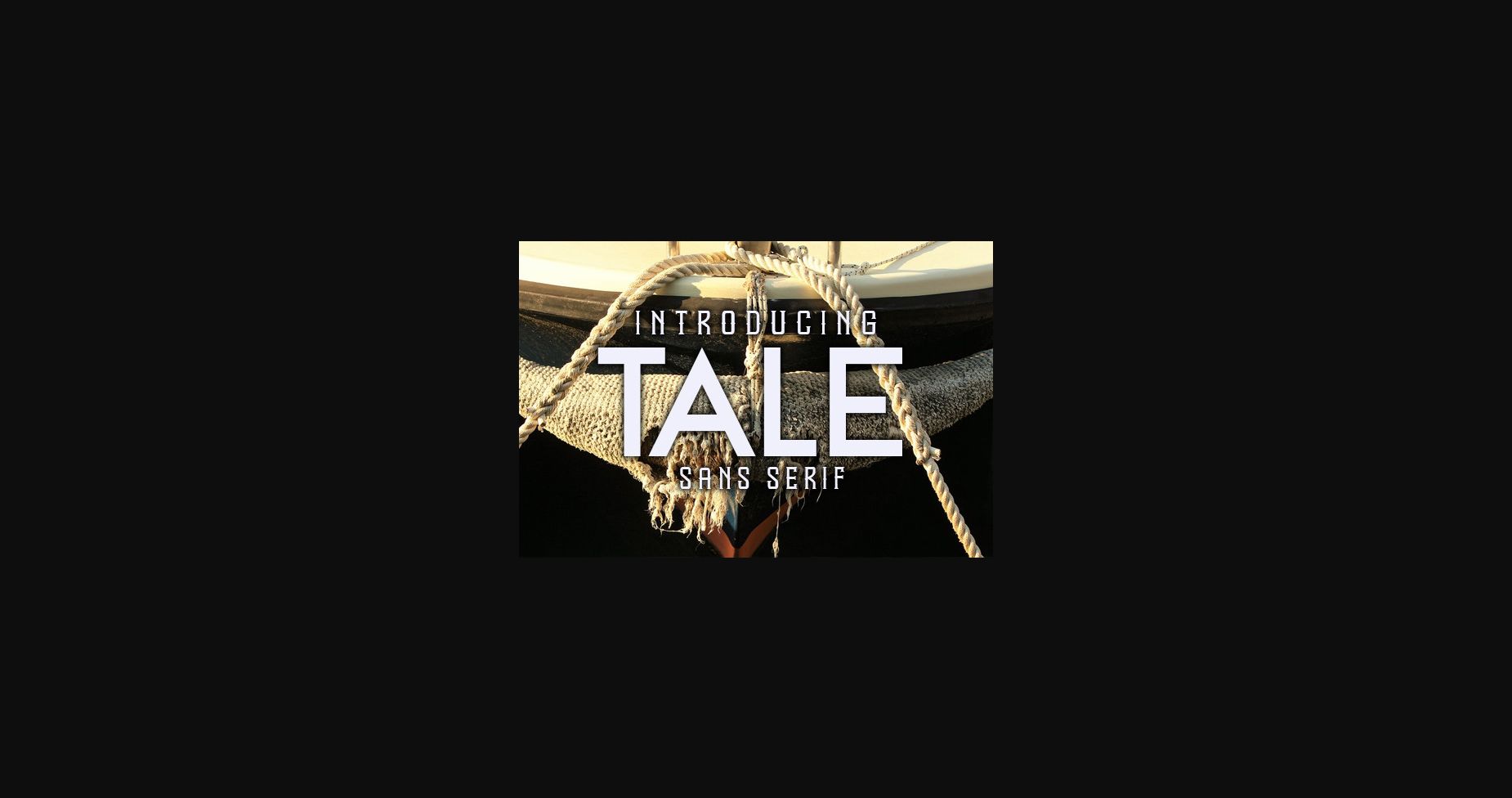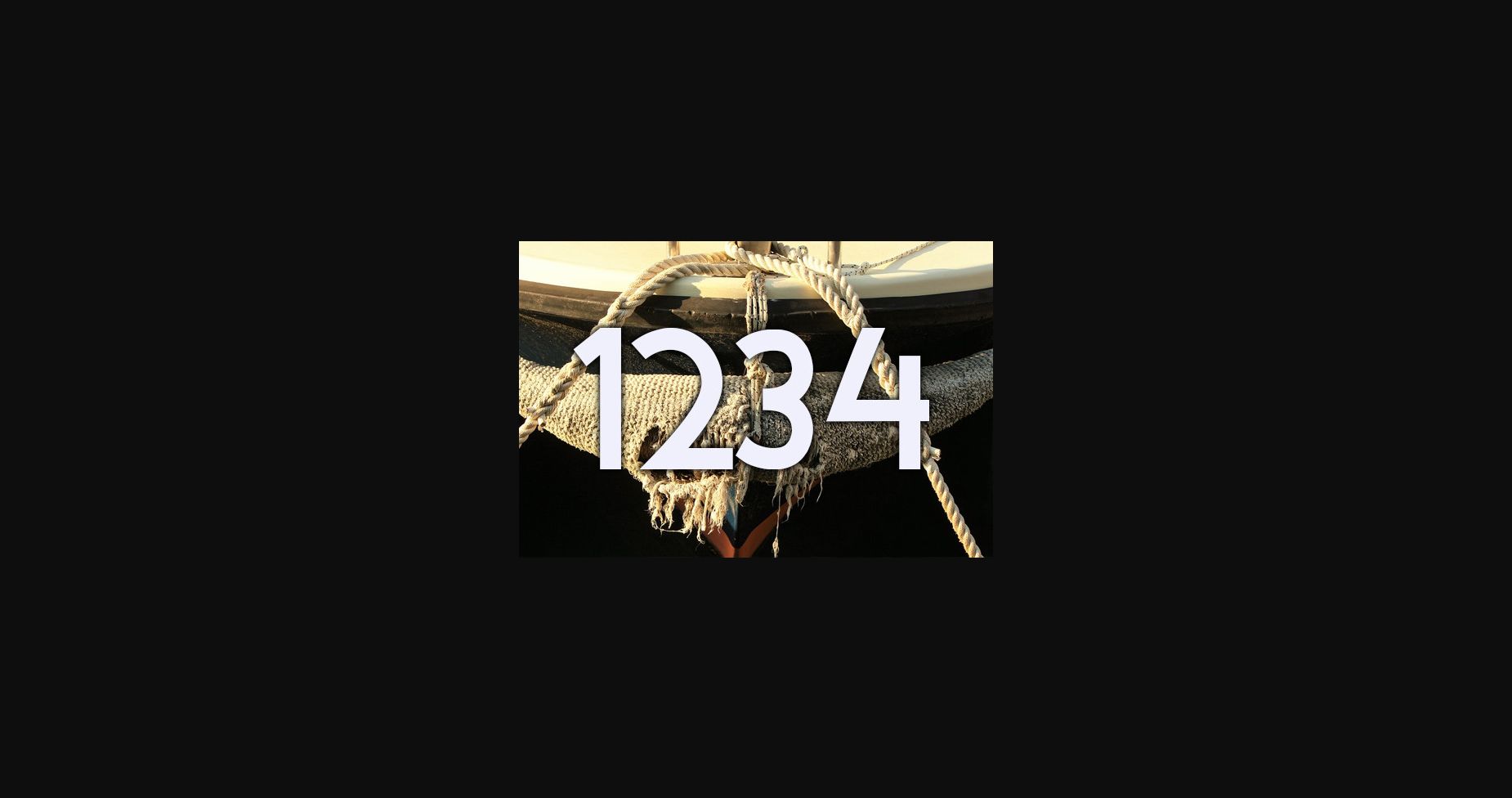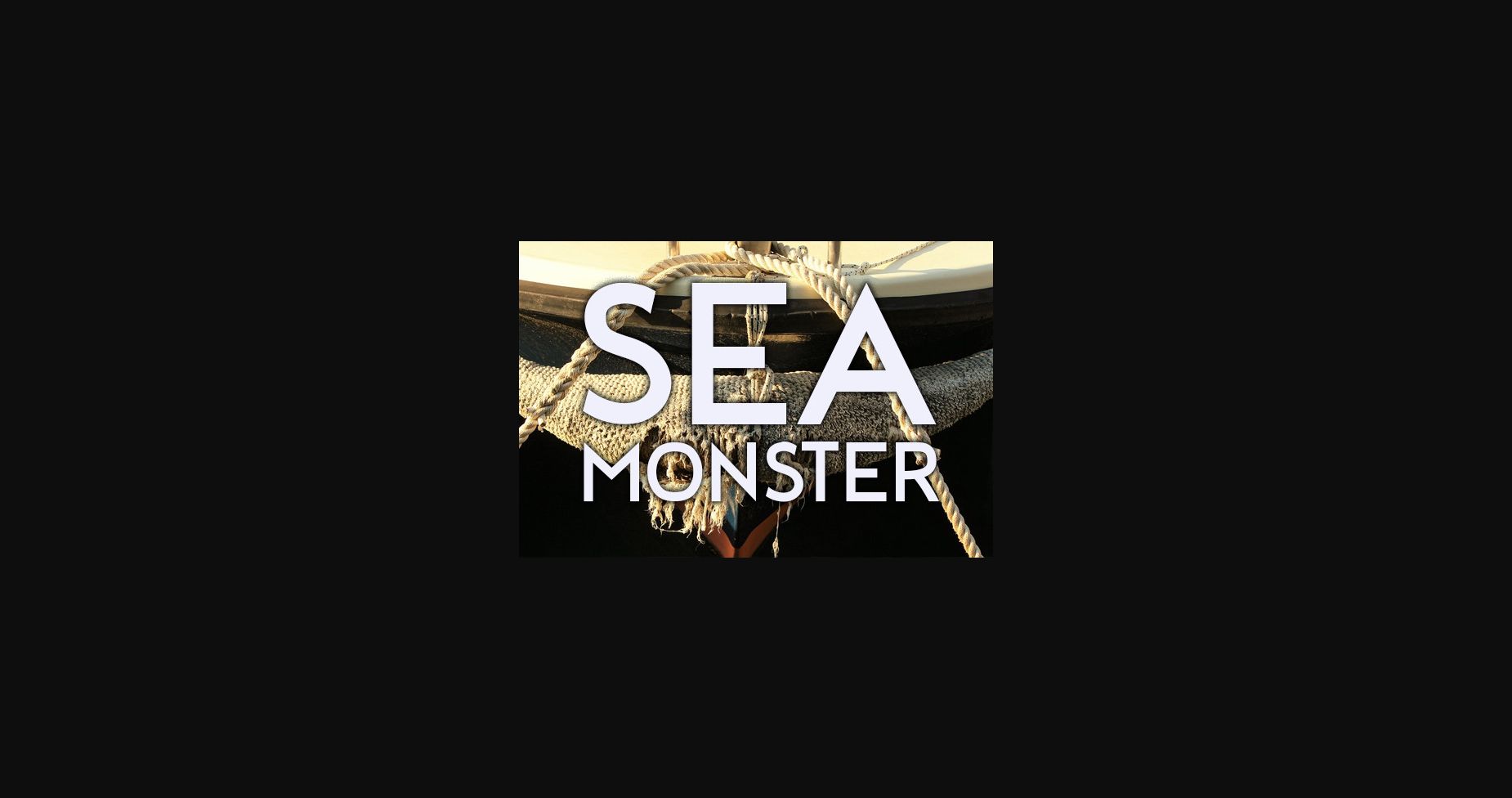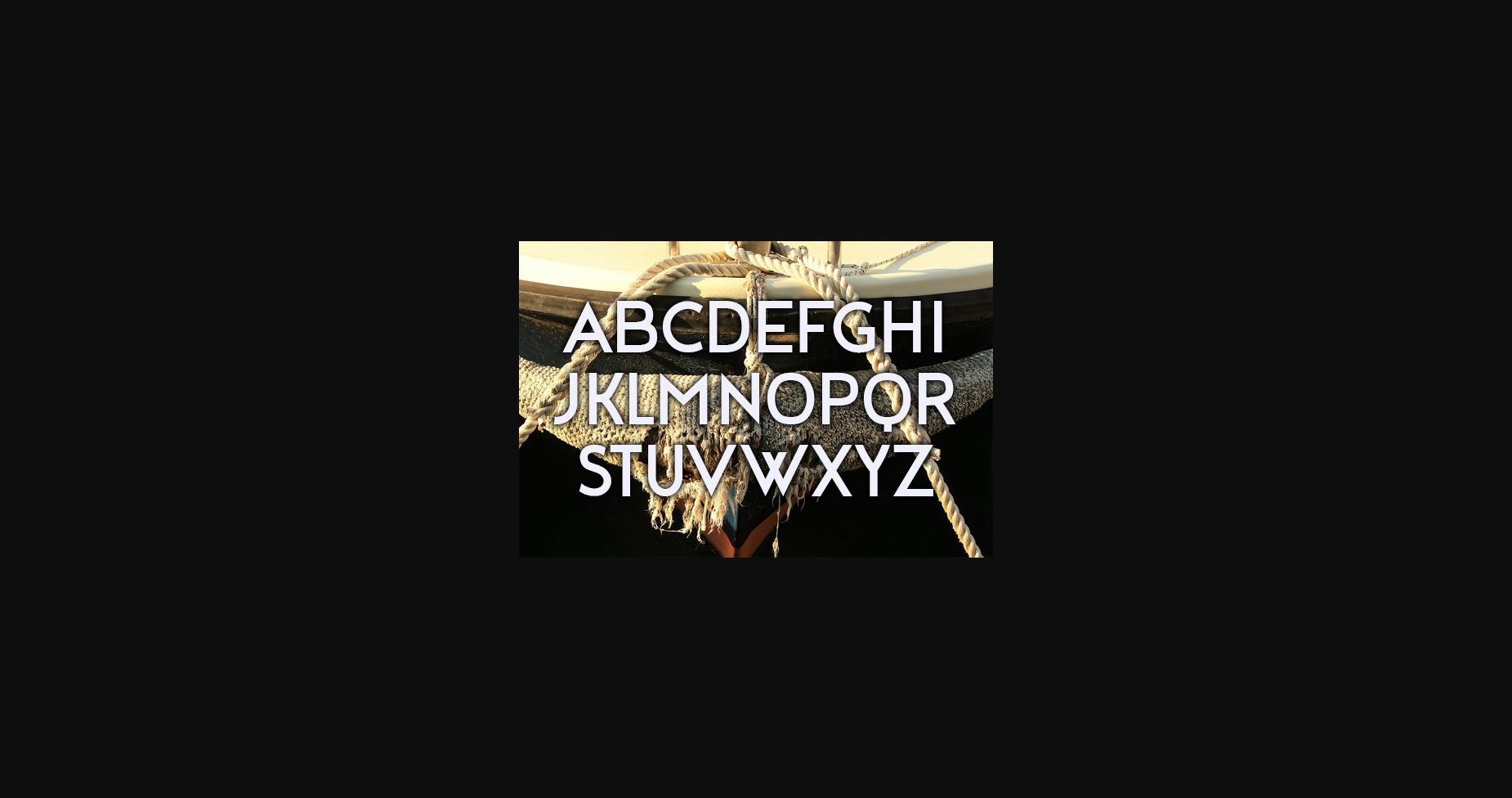
HomeSans Serif FontsTale Font Sans Serif Fonts Tale Font FacebookXPinterestWhatsApp 1 of 6 ... Tale Font Poster 2... Tale Font Poster 3... Tale Font Poster 4... Tale Font Poster 5... Tale Font Poster 6... About Tale Font Tale is a superb Sans Serif font that will make Your designs look stunning. Use it on flyers, postcards and t-shirts. DOWNLOAD NOW People also explored Keep on Truckin’ Humidity Font Active Robots Font Safety Play Web Page Font Snowflakes Ball Monogram Font Farmhouse Font Mirror It Font Necrodemon Font 329 0 TagsTaleTale Font Previous articleAlysse FontNext articleTulisans Font LEAVE A REPLY Cancel reply Comment: Please enter your comment! Name:* Please enter your name here Email:* You have entered an incorrect email address! Please enter your email address here Website: Save my name, email, and website in this browser for the next time I comment. Personal Use Free Mika Personal Use Free Read more about this font Callisa Script Personal Use Free Read more about this font Whoa Personal Use Free Read more about this font Romansya Personal Use Free Read more about this font BLOG Free Fonts Risk: Why Free Fonts Can Be Dangerous for Designers Free Fonts Risk: Why Free Fonts Can Be Dangerous for Designers Using free fonts is a common practice in web and graphic design. However, the... Exploring Font Trends Best Fonts for YouTube Videos: Make Your Thumbnails Stand Out Modern Sans-Serif Fonts That Brands Love in 2025